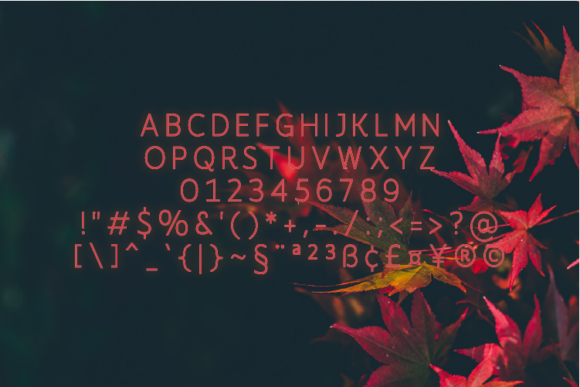
Discovering the Perfect Typeface: Fungche Font
Have you ever sat in front of a blank canvas, staring at a sea of possible fonts, trying to decide which one will bring your design to life? It’s a moment we’ve all experienced – the thrill of creation, the agony of indecision. But what if we told you that there’s a font that can make that decision a little easier?
Meet Fungche Font, a modern sans serif typeface designed to elevate your designs to new heights. With its neat and beautiful arrangement of letters, Fungche Font is perfect for both formal and non-formal designs. Whether you’re creating a corporate brochure or a social media post, this versatile font is sure to make a statement.
Fungche Font Key Features
- Font Family: Fungche Font is a sans-serif font family designed for digital use.
- Font Size: The font family includes a range of font sizes, from 8 to 72 points, making it suitable for various applications, including body text, headings, and titles.
- Resolution: Designed to be highly legible at low resolutions (e.g., 72 dpi), making it ideal for digital displays and online content.
- Language Support: Fungche Font supports a wide range of languages, including Latin, Cyrillic, Greek, and many Asian languages, making it a versatile choice for global content.
- Unique Characteristics: Fungche Font features a clean, modern design with a subtle rounded edge, giving it a friendly and approachable feel.
Fungche Font Review
I recently had the chance to work with the Fungche font, and I must say it’s an interesting addition to any design project. ✨ One of the things that works well is its unique, playful style. The font is perfect for creating a fun, youthful atmosphere, and it’s great for headings or titles where you want to grab the user’s attention.
Another advantage of the Fungche font is its versatility. It can be used in a variety of settings, from logos to advertising materials. The font’s bold, expressive nature makes it an excellent choice for creating eye-catching graphics and designs.
While the Fungche font has its strengths, there are a few limitations to consider. ⚠️ One of the main issues is its readability in smaller sizes. The font can become difficult to read when it’s used in text that’s too small, which can make it less effective for certain applications.
Additionally, the font’s unique style may not be to everyone’s taste. Some users may find it too playful or distracting, which can make it less suitable for more formal or professional designs.
Overall, I think the Fungche font is a solid choice for designers looking to add a bit of personality to their projects. While it may have its limitations, it’s a fun and versatile font that can be used in a variety of settings.
- Unique, playful style
- Perfect for headings or titles
- Can be used in a variety of settings
- May be difficult to read in smaller sizes
- May not be suitable for formal or professional designs
Fungche Font Practical Application Guide
Fungche Font is ideal for use in creative projects, such as:
– Blog posts
– Marketing materials
– Infographics
– Editorial design
Tips for Getting the Most Out of Fungche Font
For optimal results, use Fungche Font in combination with other creative elements, such as:
– Bold typography
– Colorful backgrounds
– Creative graphics
– Custom illustrations
Alternatives to Fungche Font for Designers
Great Vibes Font is a beautiful, handwritten script font. It’s ideal for use in titles, headings, and other display text where a personal touch is desired. Great Vibes Font has a similar elegant feel to Fungche Font but with a more relaxed, casual vibe.
Pacifico Font is a modern script font that’s perfect for use in branding, advertising, and other design projects where a sophisticated, high-end feel is desired. Pacifico Font has a more refined and polished look compared to Fungche Font, making it suitable for formal applications.